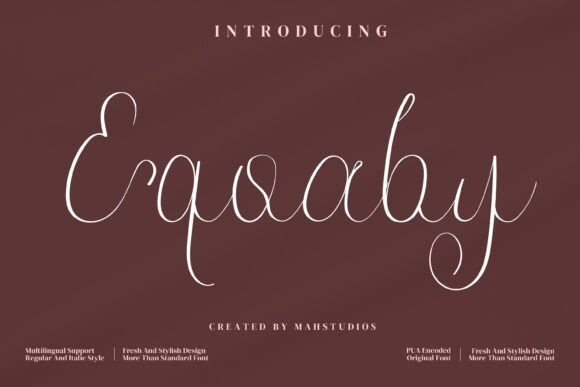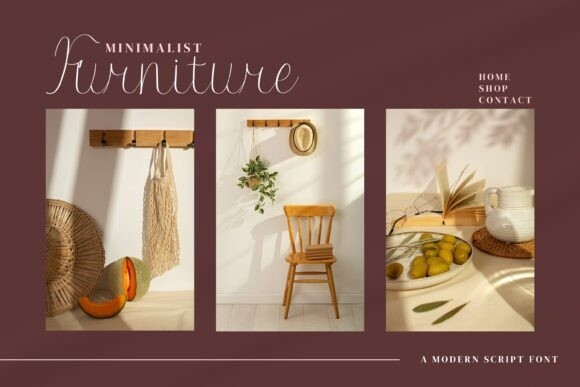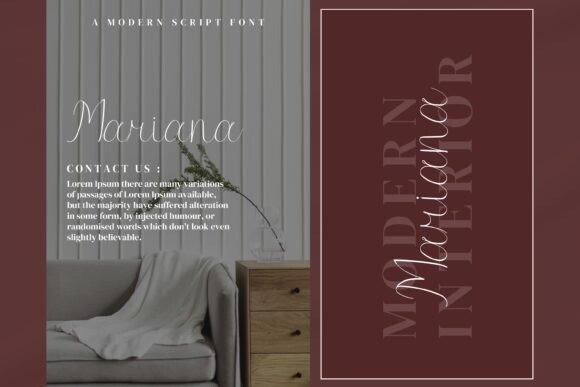
Eqoaby Font
This exquisite handwritten font exudes elegance and sophistication. Its graceful, flowing lines and intricate details create a sense of delicacy and refinement, while its sweeping curves and tapered strokes give it a bold and confident presence. Perfect for adding a touch of high-end luxury to wedding invitations, product packaging, and other premium design projects. It is also PUA encoded which means you can access all of the glyphs and swashes with ease!